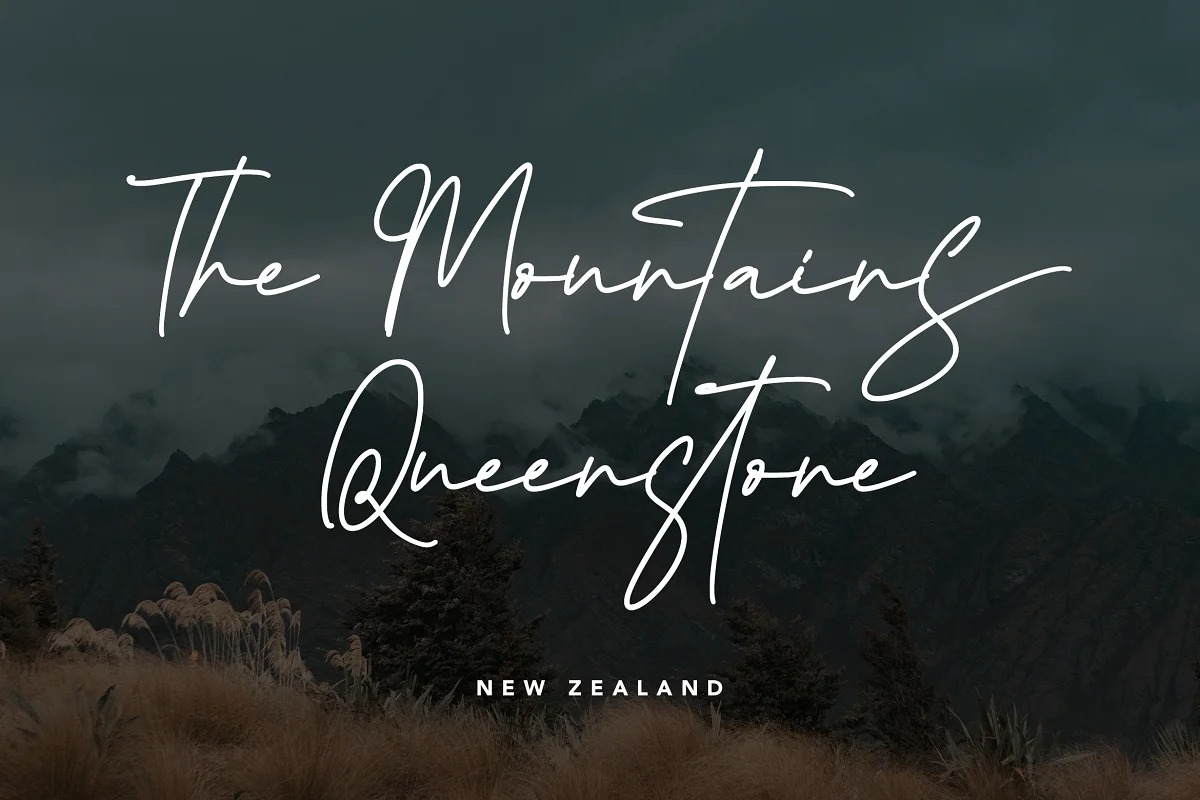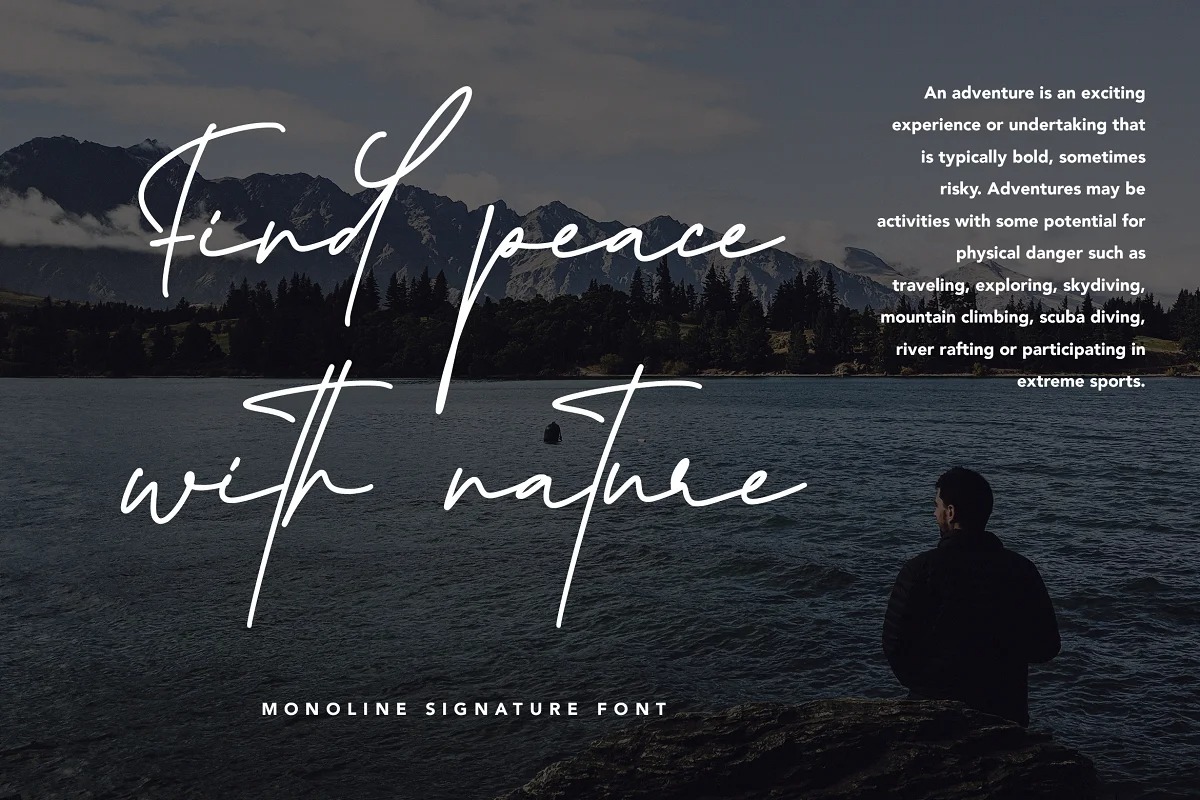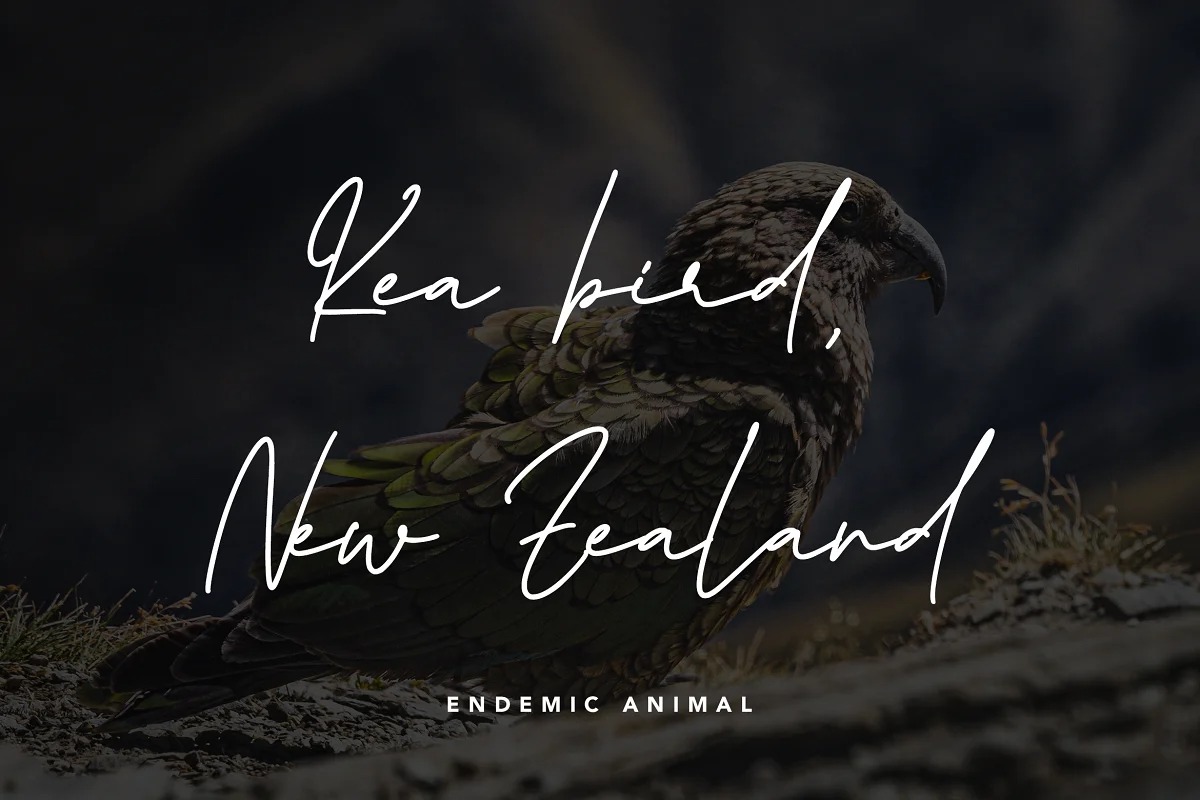
Queenstown Signature Script Font
This is a lovely and delicate script font that exudes elegance and class. It’s designed and shared by Arendxstudio. It’s a font with distinctive handwritten characters perfect for branding projects, logos, wedding designs, media posts, advertisements, product packaging, product designs, labels, photography, watermarks, invitations, stationery, and any project who need handwritten dishes.